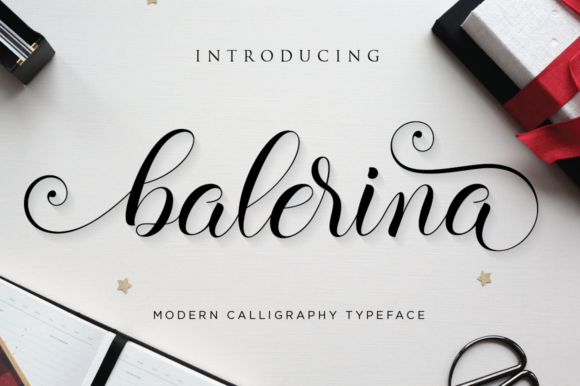
Discover the Magic of Balerina Script Font
Have you ever found yourself lost in a sea of inspiration, surrounded by beautiful paper, glittering embellishments, and a blank canvas waiting to be transformed? For many creatives, this is the moment when the spark of creativity ignites, and the possibilities seem endless. It’s the perfect time to bring your vision to life, and the right font can make all the difference.
Enter the enchanting world of Balerina Script Font, a gorgeous typographic style designed to elevate your DIY projects to new heights. With its elegant curves and whimsical charm, this font is perfect for adding a touch of personality to your handmade cards, invitations, and other paper crafts. Whether you’re a seasoned designer or a crafting newbie, the Balerina Script Font is an invaluable tool that will help you create truly unforgettable pieces.
Ballerina Script Font Key Features
- Unique Characteristics: The Ballerina Script Font features elegant, flowing lines and subtle flourishes, giving it a touch of sophistication and whimsy.
Balerina Script Font Review
Overall, I was impressed with the Balerina Script Font, especially in its ability to evoke a sense of elegance and sophistication ✨. The font’s flowing script style makes it perfect for use in wedding invitations, baby shower cards, and other events where a touch of glamour is desired.
Here are some of the things that I liked about the font:
- Beautifully crafted letterforms that seem to dance across the page ✨
- Perfect for use in titles, headings, and other text that needs to stand out
- Works well in both digital and print formats
However, I did encounter some limitations while working with the font ⚠️:
- Can be a bit difficult to read at smaller font sizes
- May not be the best choice for use in body text, where readability is a priority
- Can be prone to letter spacing issues if not used correctly
Overall, I would recommend the Balerina Script Font for projects where a touch of elegance and sophistication is desired. Just be sure to use it judiciously and in conjunction with a clear, readable font for body text.
Balerina Script Font is ideal for creating elegant and feminine designs. Some common use cases include:
– Blog headers and titles
– Social media graphics and captions
– Fashion and beauty branding
Getting the Most Out of Balerina Script Font
To get the most out of Balerina Script Font, try combining it with other elegant fonts, using it in bold or italic styles, and experimenting with different color combinations.
Alternatives to Balerina Script Font
Playfair Display is an elegant, high-end script font perfect for luxury branding, invitations, and formal designs. It has a more refined and classic feel compared to Balerina Script Font, which is more playful and whimsical.
When to use: Luxury branding, formal invitations, high-end packaging.
Comparison: Playfair Display is more formal and traditional, while Balerina Script Font is more modern and playful.
Carolyna Pro is a beautiful, handwritten script font ideal for creative projects, such as book covers, magazine layouts, and advertising materials. It has a more fluid and expressive feel compared to Balerina Script Font, which is more structured and controlled.
When to use: Creative projects, book covers, magazine layouts, advertising materials.
Comparison: Carolyna Pro is more expressive and creative, while Balerina Script Font is more polished and refined.